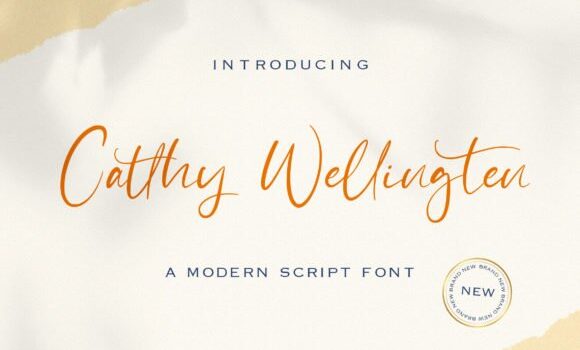
Catthy Wellingten Font – Free Download Introduction to Catthy Wellingten Font Catthy Wellingten is an incredibly distinct, delicate and timeless handwritten font. 📸 Preview Gallery 6 images 📌 Product Name Catthy Wellingten Font 👤 Author StringLabs 📂 Category Explore ⬇️